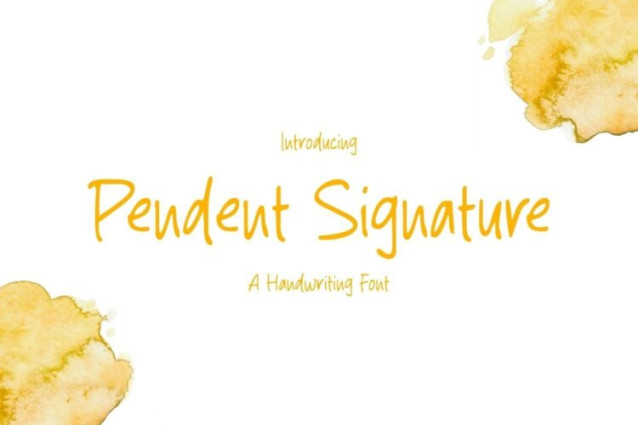
Pendent Signature Font
Pendent Signature Font is a simple and friendly handwritten font. Its natural and unique style makes it incredibly fitting to a large pool of designs. The only limit is your imagination!